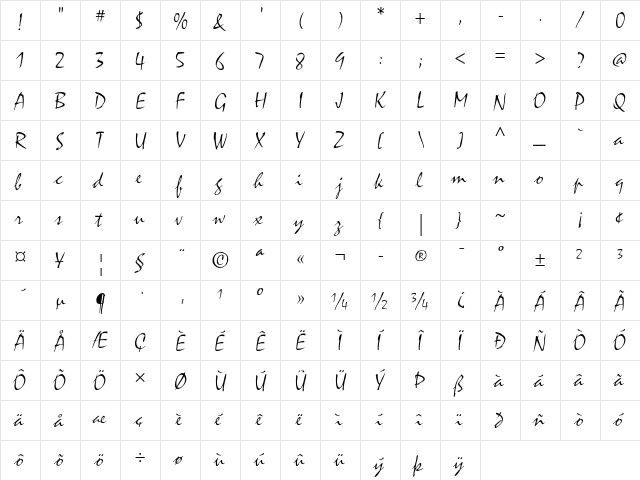
Mistral ITC Std Light Regular
| Designer | Phill Grimshaw |
Design Context for Mistral ITC Std Light Typeface
Mistral ITC Std Light is a composed and adaptable typeface that performs quietly and consistently across a wide range of design contexts. Its slender proportions lend an understated elegance to any composition.